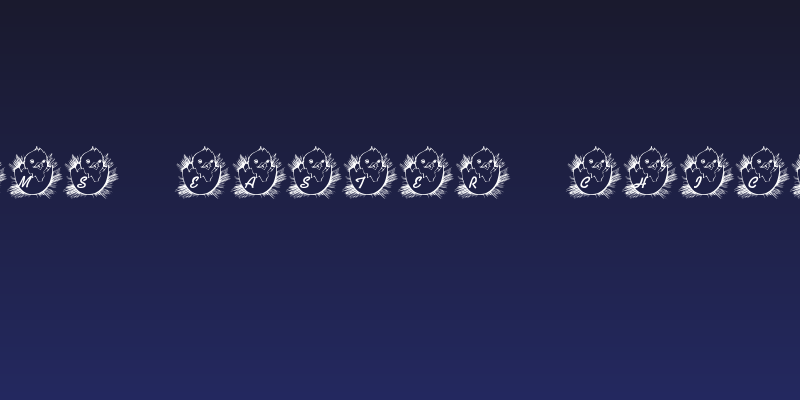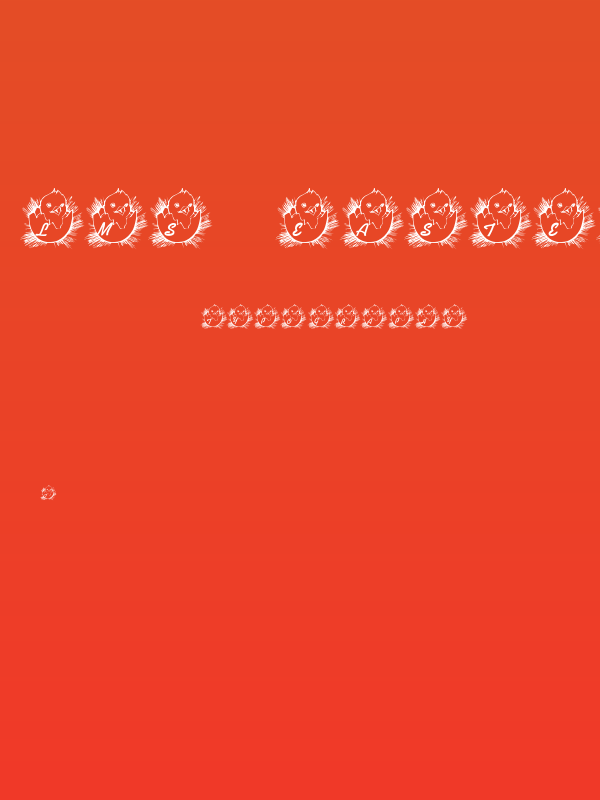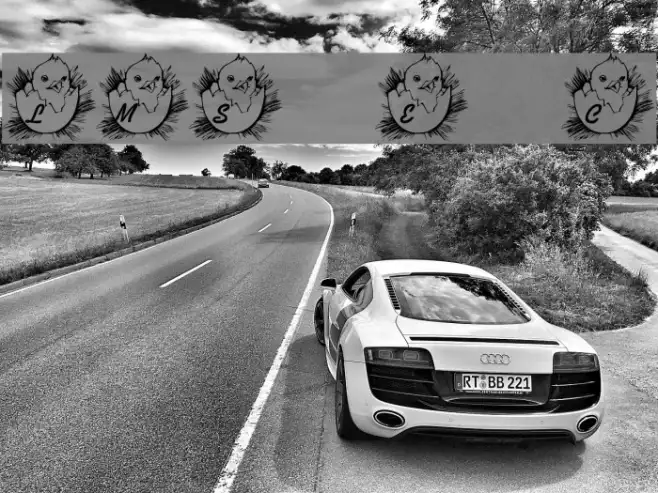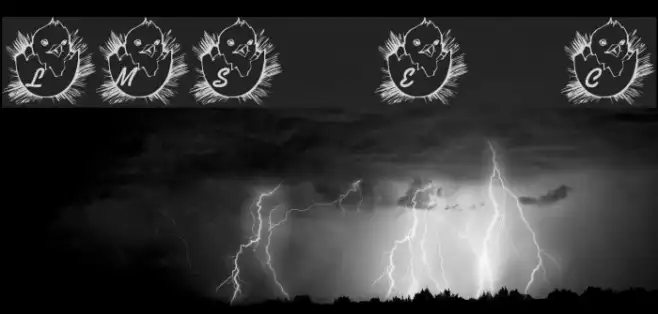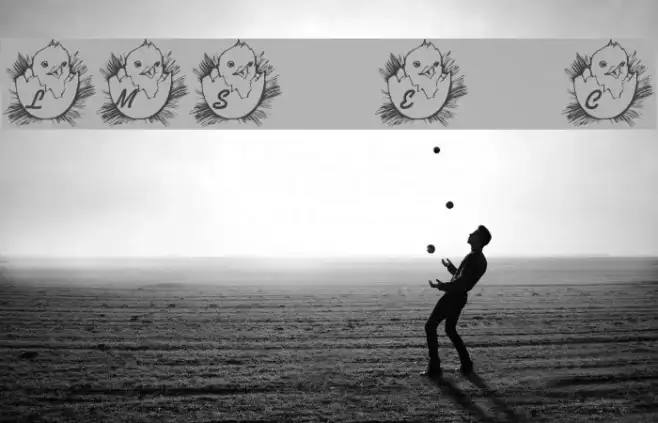
LMS Easter Chick Font
LMS Easter Chick Description
This playful and whimsical font features each character nestled within a charming Easter chick design. The letters are elegantly scripted, adding a touch of sophistication to the overall playful theme. The font combines a sense of fun with a decorative style, making it ideal for festive occasions. Each character is distinct yet harmoniously integrated into the chick motif, creating a cohesive and visually appealing design. The font's unique style is perfect for projects that require a light-hearted and festive touch, such as Easter-themed invitations, greeting cards, or children's party decorations.
| Proposed Projects | Ideal for Easter-themed invitations, greeting cards, children's party decorations, and playful branding. |